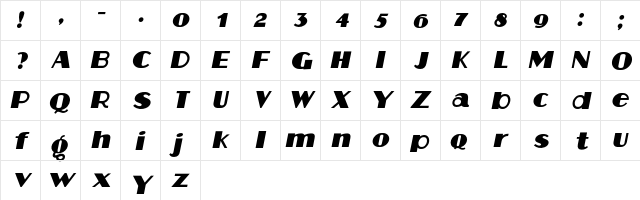
Aafia Italic
Design Context for Aafia Typeface
Aafia takes a measured approach to typography — its balanced proportions and neutral character make it a reliable workhorse for both digital and print work. Its italic angle brings a sense of urgency and motion to the letterforms.
Pro Tip: Try Aafia for annotation and caption copy alongside an upright companion — the contrast in angle creates a dynamic but ordered typographic system.